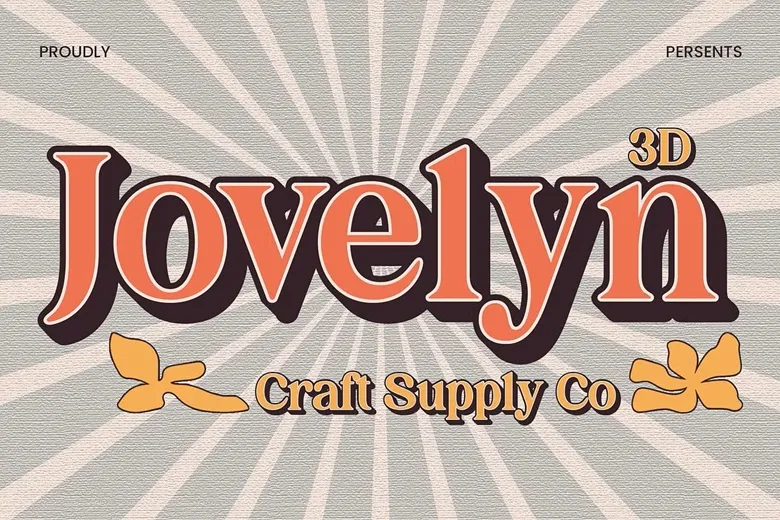
Jovelyn 3D font is a traditional serif font which manages to represent retro design with an air of timelessness. The letterforms own an inspiration from the vintage typography which have strong, bold serifs and inspiring nostalgia and warmth. Such a clean contemporary structure compliments this fonts retro aesthetic, bringing a modern edge to it retrospective appeal.